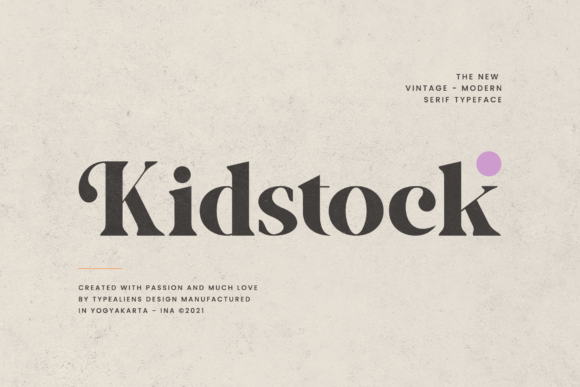
Dive into the world of Kidstock Font, a serif treasure crafted by the talented typealiens. Experience the allure of this captivating font, a perfect fusion of classic elegance and modern charm. Kidstock Font is not just a font; it's an artistic journey that breathes life into your designs.
With its intricate serifs and flowing curves, Kidstock Font adds a touch of timeless sophistication to your creations. Whether you're designing logos, branding materials, or eye-catching headlines, this font will elevate your work to new heights. Its versatility knows no bounds, making it an indispensable tool for designers seeking a font that seamlessly blends vintage aesthetics with contemporary elegance.
Kidstock Font is particularly renowned for its mastery in Japanese text. Its carefully crafted characters capture the essence of the Japanese language, ensuring impeccable clarity and readability. Whether you're creating marketing materials, website content, or stunning social media graphics, Kidstock Font will make your Japanese text shine.